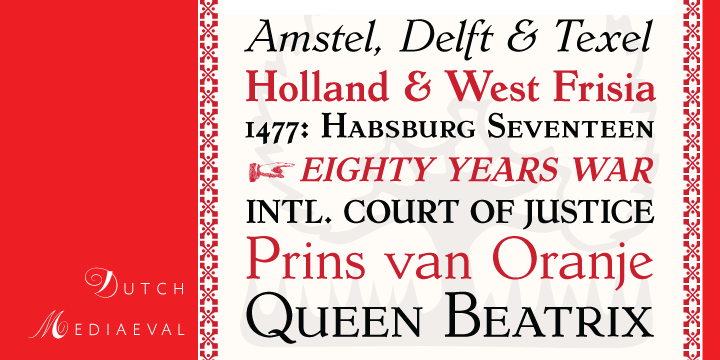
Dutch Mediaeval Book is a serif font family. This typeface has two styles and was published by Canada Type.
Dutch Mediaeval is a text family based on Hollandse Mediaeval, the 1912 Sjoerd Hendrik deRoos classic, arguably the most popular Dutch text face of the 20th century. Over the years, many typographers and pressmen have gushed loving words about this typeface in metal, and now it comes to digital life in wonderful and expert style.
An extended family of two weights, corresponding italics, and small caps across the board, Dutch Mediaeval is a veritable workhorse that flows comfortably, with the elegance and sensibility of the main weights nicely complemented by the sturdiness of the bolds. Very few text faces are this clean and inviting. This is effectively demonstrated in the 5-page, 4-language Print Test PDF available here in the font gallery.
Dutch Mediaeval comes in all popular formats, the Pro version being the most powerful, since it’s loaded with OT features (small caps, some stylistic alternates, a complete range of traditional f ligatures, and 3 different sets of figures — lining proportional, lining tabular and oldstyle) that are very useful in programs that support such typographic finesses.
This family also boasts extended language support, surpassing the usual Western Latin codepages to include characters for Central and Eastern European languages, as well as Baltic, Celtic/Welsh, Esperanto, Maltese, and Turkish.
Dutch Mediaeval Condensed is the narrow 4-style companion to the popular and quintessential Dutch Mediaeval family. It comes in two weights and corresponding italics. Also included is the Dutch Mediaeval Initials set, based on the classic Hollandse Initials originally designed by S. H. de Roos.